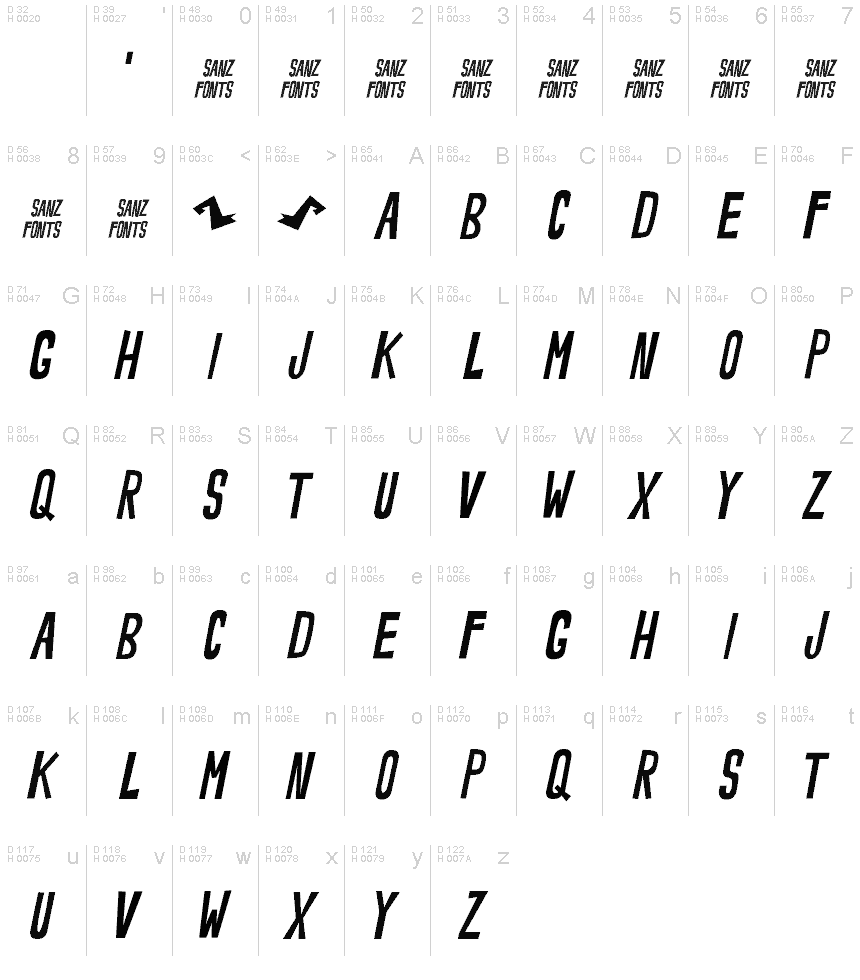
Noveey Italic
Noveey Italic is a bold, commanding font that exudes a distinct comic book aesthetic. Designed by Sanz d'Cloudz, also known as Ihsan, this display-style, condensed font captivates with its dramatic, angular lines and robust presence.
The font's visual impact is undeniable, making it an excellent choice for attention-grabbing headlines, posters, and other high-impact design applications. Its comic-inspired flair lends itself well to branding and packaging for products with a playful, energetic vibe. Noveey Italic's versatility extends to various creative projects, from comic books and video game assets to streetwear and event promotion.